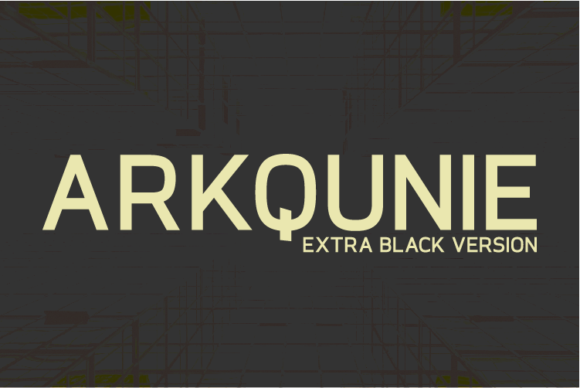
Unlocking the Power of Headlines: Introducing Arkqunie Extra Black Font
You know that feeling when a single font choice elevates your entire design project? It’s like the perfect melody in a song – it brings everything together and leaves a lasting impression. For designers, finding that perfect font can be a game-changer. That’s where the Arkqunie Extra Black Font comes in – a versatile and striking sans serif typeface that’s perfect for making a statement.
Whether you’re crafting a bold headline, designing a business card, or creating a logo, Arkqunie Extra Black Font is the perfect tool for the job. Its unique geometric design and maximum flexibility make it a valuable asset for any designer looking to add a touch of sophistication and creativity to their work.
Arkqunie Extra Black Font Key Features
- Font Family: Arkqunie Extra Black, a unique and elegant font designed for headings and titles.
- Unique Characteristics: Features a bold, extra-black design with intricate details and a premium feel, making it ideal for luxury branding and high-end designs.
Designer Review: Arkqunie Extra Black Font
Overall, I think the Arkqunie Extra Black Font has some promising features, but it also has some limitations that might make it less suitable for certain projects.
- The font has a bold, dramatic feel to it, which can be great for titles, headings, and other prominent text elements.
- The Extra Black weight is well-designed and provides a clear, readable contrast.
- The font is well-suited for modern and futuristic designs, which can be a great fit for certain branding and visual identity projects.
- The font lacks a clear sense of legibility, particularly at smaller font sizes. This can make it difficult to read in certain contexts.
- The font is not optimized for body text, and using it for large blocks of text can be visually overwhelming.
- The font’s design feels somewhat inconsistent, with some characters and letterforms feeling less refined than others.
While the Arkqunie Extra Black Font has some great qualities, its limitations make it less versatile than other fonts. It’s best suited for projects where a bold, dramatic feel is essential, but it’s not the best choice for body text or everyday use.
The Arkqunie Extra Black font is ideal for use in titles, headings, and other large text elements where a bold, dramatic effect is desired.
Use the font to create a sense of luxury and sophistication in your designs, or to add a touch of edginess to your branding.
Experiment with different font sizes and styles to achieve the desired effect in your design.